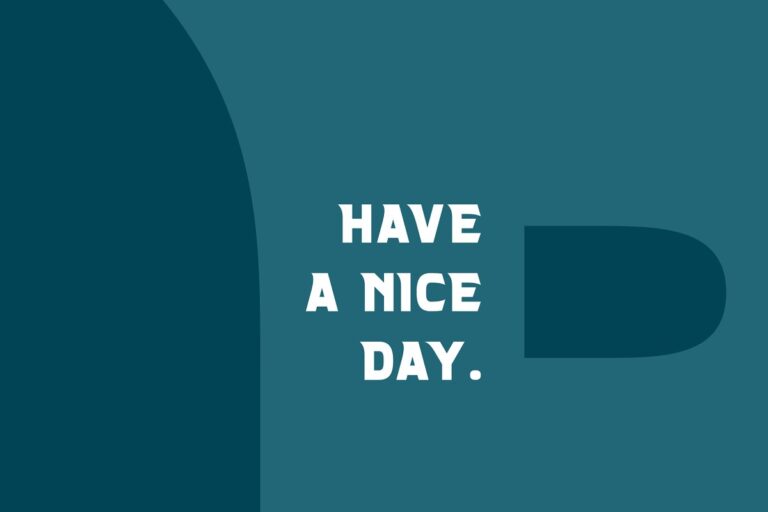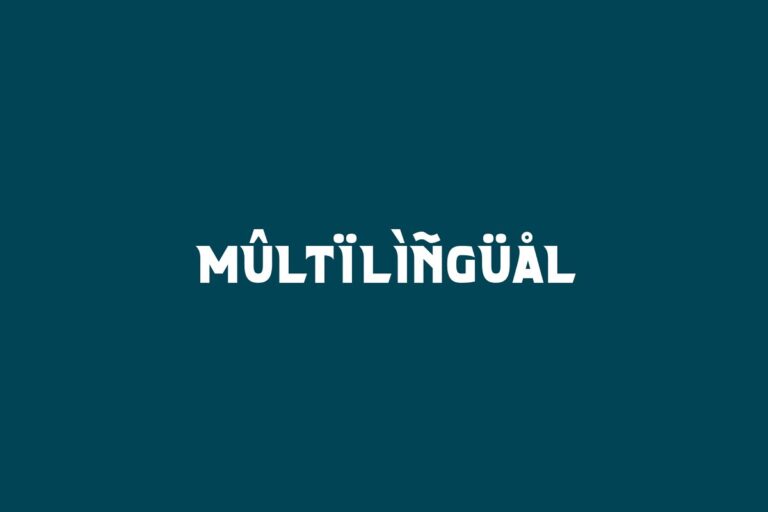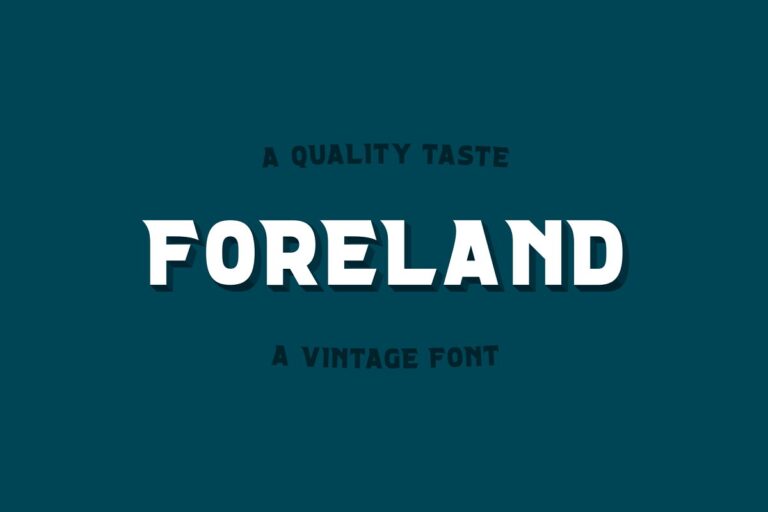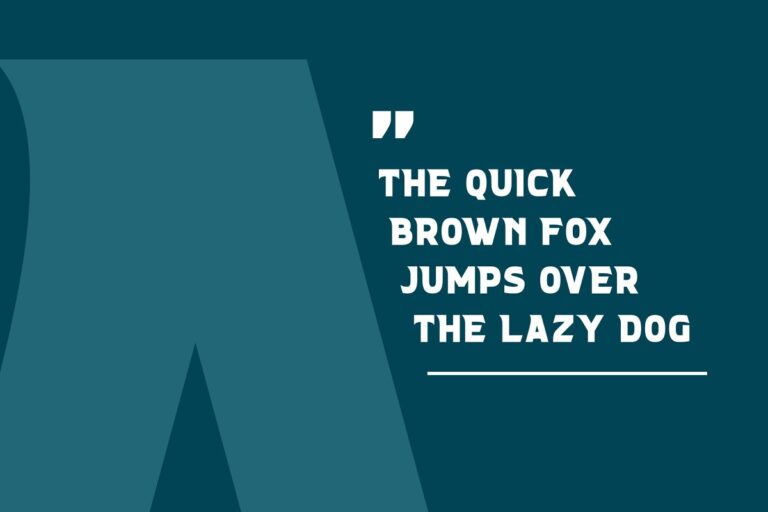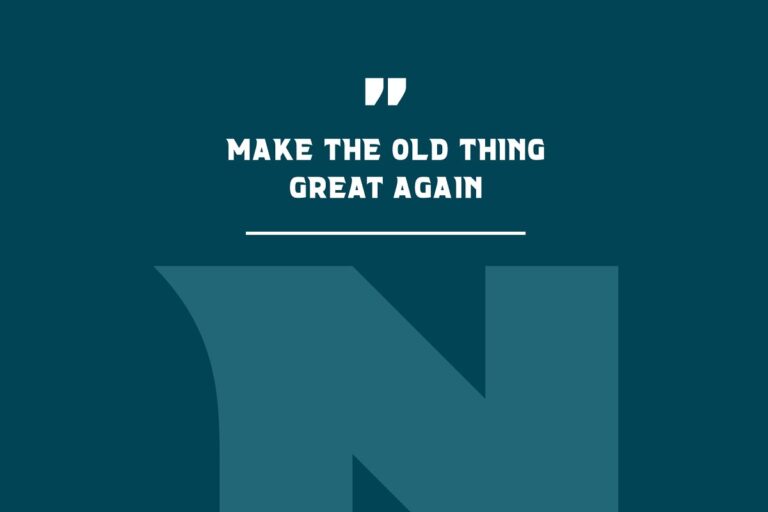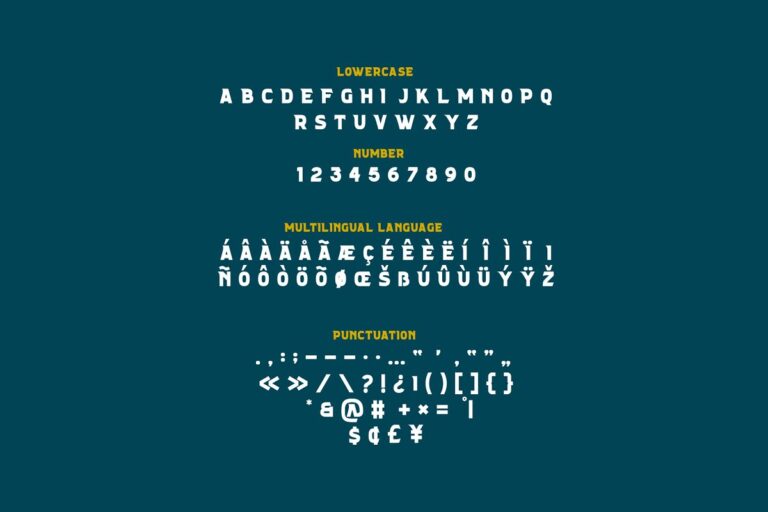
Foreland font is a tasteful typeface. It has a slightly flared look and interesting letterforms that make it a versatile display font for creating vintage labels, branding, packaging, posters, marketing & more!
Features:
- Uppercase
- Lowercase
- Numbers
- Punctuations
- Multilingual